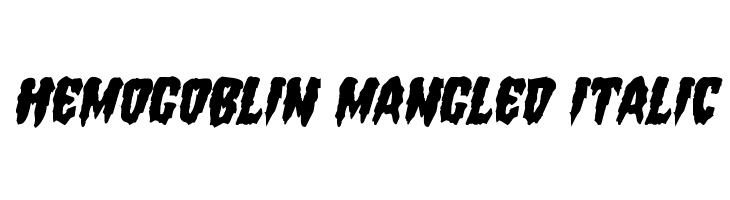
A decorative dingbat font with diverse lion illustrations and emblems.
A decorative collection of zodiac and astrology-themed symbols and illustrations.
A decorative, horror-themed font with sharp, dripping strokes.
Holiday-themed teddy bear illustrations replace standard characters.
A playful, ghost-themed decorative font with a whimsical and spooky style.
A bold, jagged font with a spooky, horror-themed design.
A collection of scout-themed icons with bold, illustrative designs.
A photography-themed dingbat font with camera and accessory illustrations.
A Morse code-inspired font using dots and dashes for each character.
Ornate Gothic-style initials with intricate floral designs.
A whimsical collection of sea-themed decorative elements with intricate designs.
A collection of medieval-themed dingbats with intricate designs.
Ornate, owl-themed pictorial glyph set.
A decorative font with Christmas-themed illustrations replacing standard characters.
A whimsical font with letters inside rabbit silhouettes, perfect for Easter themes.
A playful, bone-themed font perfect for pirate or Halloween designs.
A decorative font with spider motifs, ideal for Halloween themes.
A bold, grunge-style font with a distressed, textured appearance.
Halloween icon dingbat font with spooky illustrations.
A collection of bold, 1980s-themed icons and graphics.